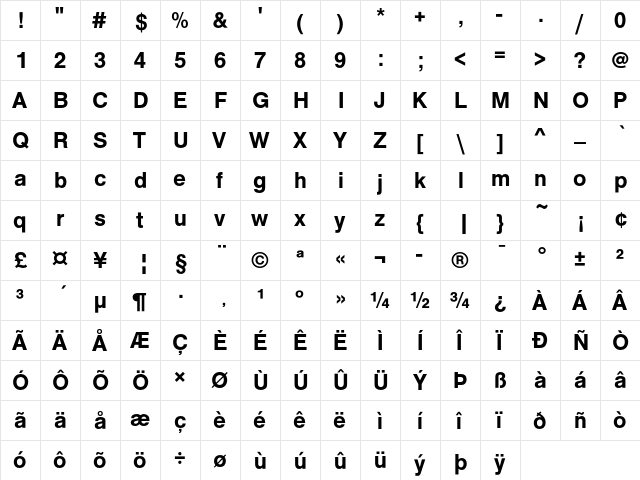
Nimbus Sans No5 Medium
Design Context for Nimbus Sans No5 Typeface
Nimbus Sans No5 is a composed and adaptable typeface that performs quietly and consistently across a wide range of design contexts.
Pro Tip: Pair Nimbus Sans No5 with a font of contrasting weight or personality to build a more expressive typographic hierarchy.